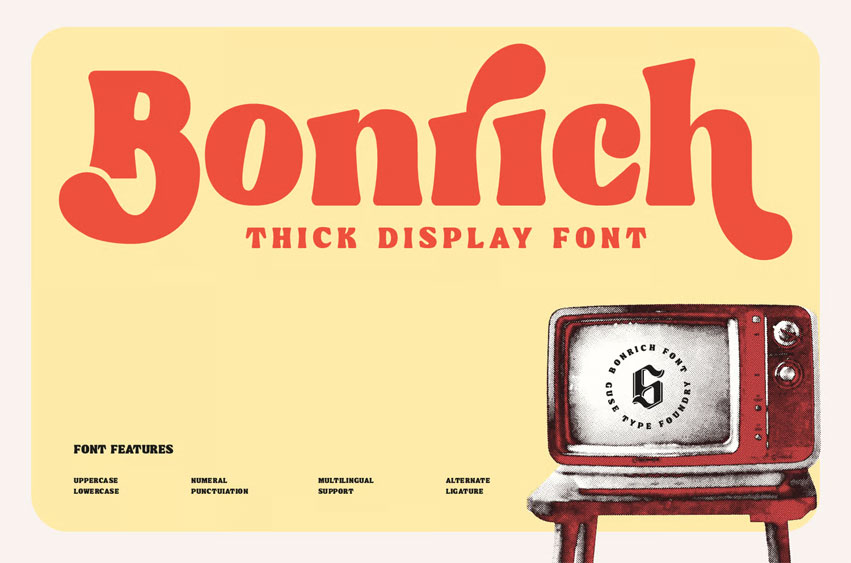
Bonrich Font
Bonrich Font is a display font made with thick lines characteristics and rounded edge at each glyphs. This font suitable for retro & vintage style design and many more. Bonrich can be used in a various of designs such as headlines, posters, logotype and more.
This font contains uppercase, lowercase, numeral, punctuation marks, multilingual support and this font has ligature & alternate features that can make your typeface look more stylish.
Highlight Bonrich font features, such as:
• Standard Glyph
• Stylistic Alternates & Ligatures
• Symbol & Punctuation
• Multiple Languages Supported